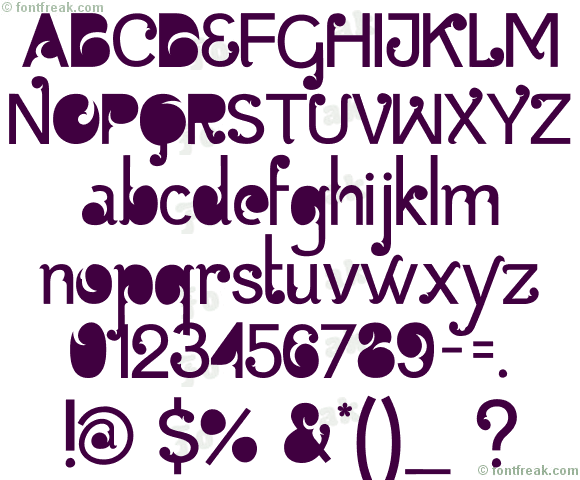
Batik Gangster Normal
Batik Gangster Normal is a captivating display font designed by Adien Gunarta that combines elements of traditional batik artistry with a modern gangster flair. This font falls into the decorative category, making it an excellent choice for projects that require a bold and eye-catching typeface. The strokes of Batik Gangster Normal exhibit a playful weight with varying thicknesses, creating a sense of rhythm and movement. The character design features unique curves and decorative elements that add an artistic touch, while the overall spacing ensures legibility even in larger sizes.
This font is particularly well-suited for a variety of creative applications. Its distinctive style makes it ideal for wedding invitations, where it can add a whimsical yet elegant feel. Additionally, it can be effectively used in movie posters, especially for genres that embrace a retro or artistic aesthetic. Restaurant menus can also benefit from the font's unique character, drawing attention to special dishes or themed events. Furthermore, Batik Gangster Normal is a great choice for promotional materials aimed at small business owners looking to stand out in a competitive market.
In a crowded digital landscape, Batik Gangster Normal stands out due to its innovative fusion of traditional and contemporary styles. Its unique aesthetic not only captures attention but also evokes a sense of cultural richness, making it a versatile choice for various design needs. This font is not just about style; it tells a story that resonates with diverse audiences.